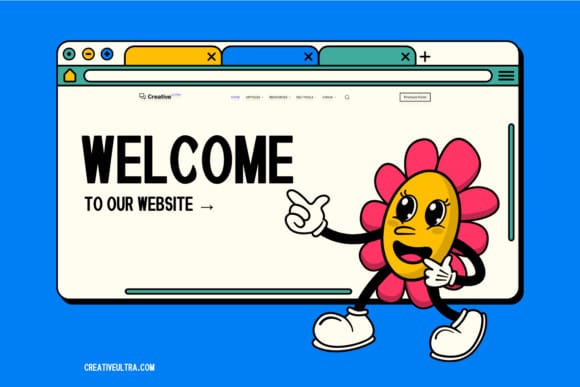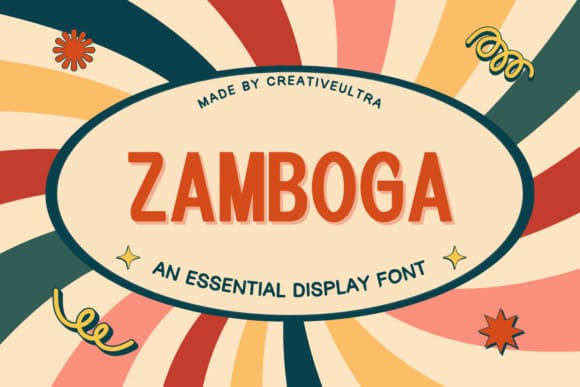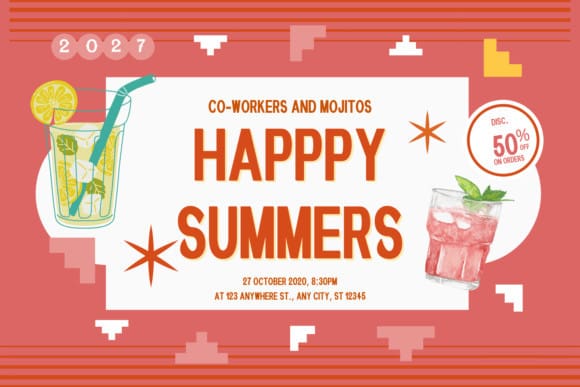
Zamboga Font
Zamboga Font, a vibrant and powerful typeface crafted to command attention. Zamboga, with its bold design, is a fit for a diverse array of display items, extending from posters to banners, labels, and beyond. This font comes with uppercase alphabets and numbers, ensuring broad-spectrum adaptability across miscellaneous projects. Its high-impact appeal adds an unforgettable touch to your design composition.